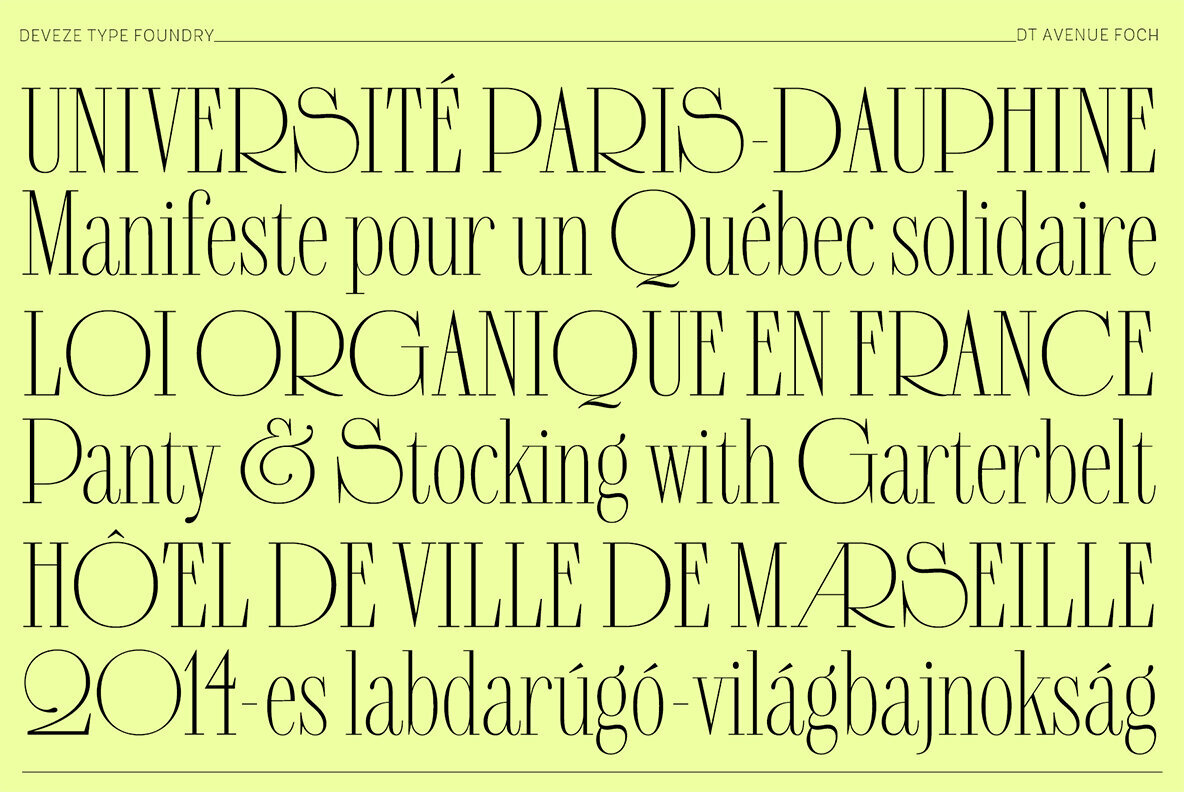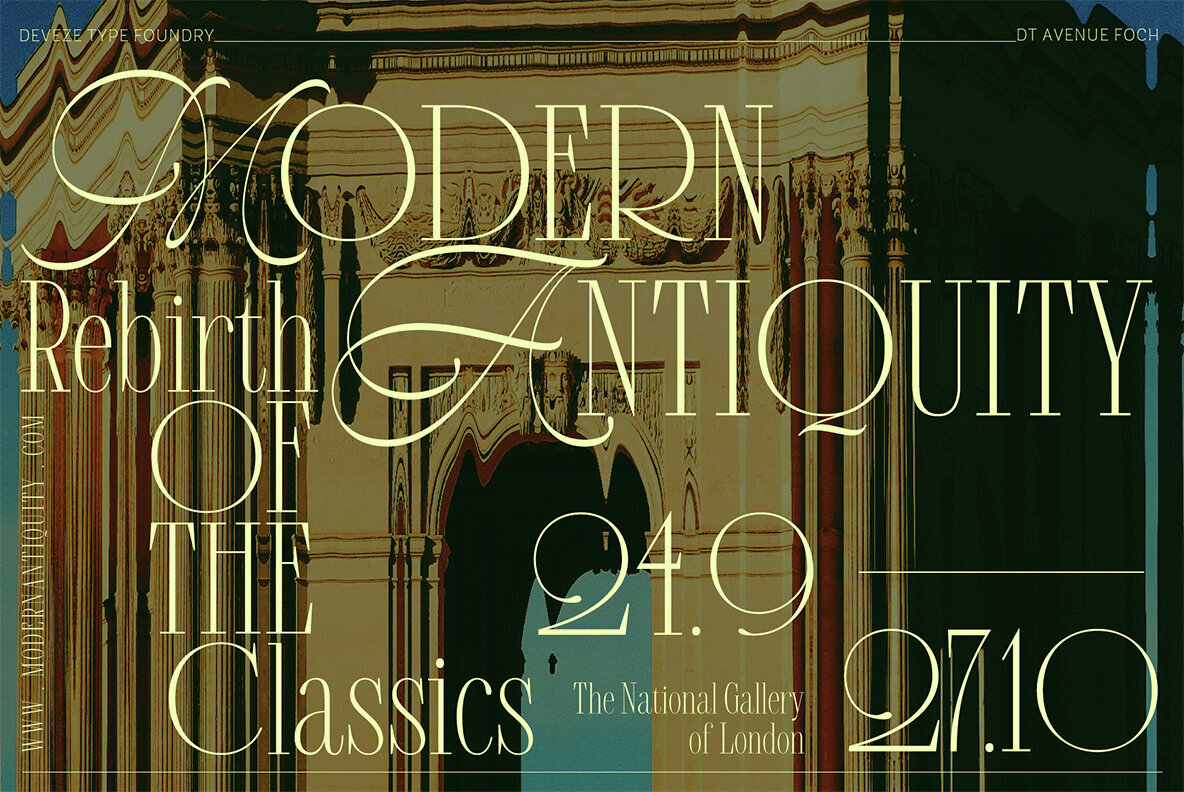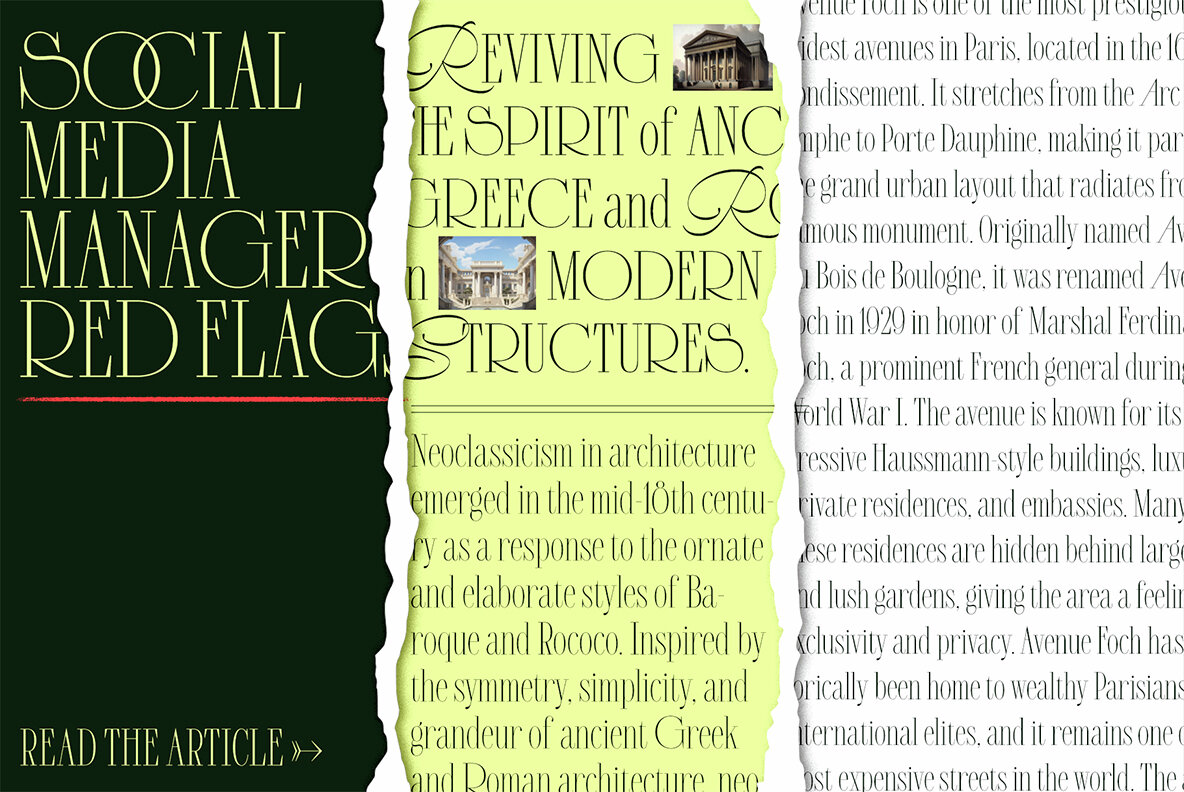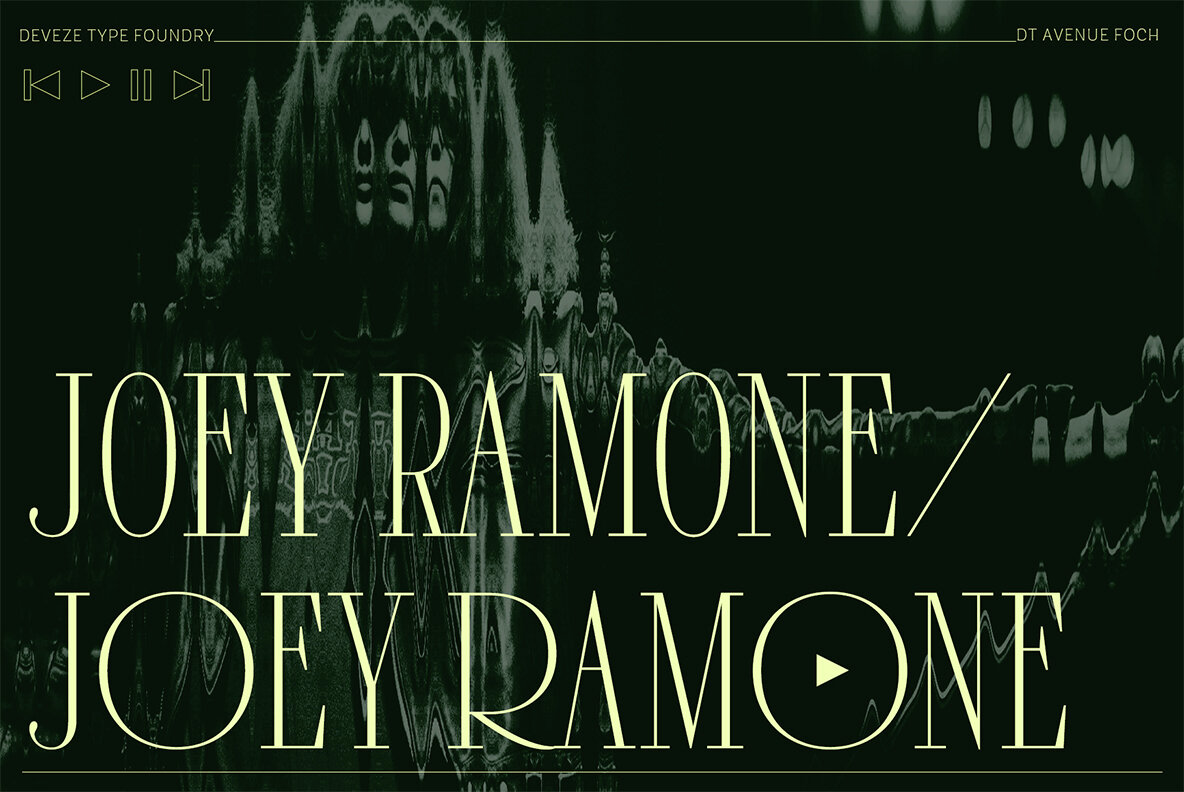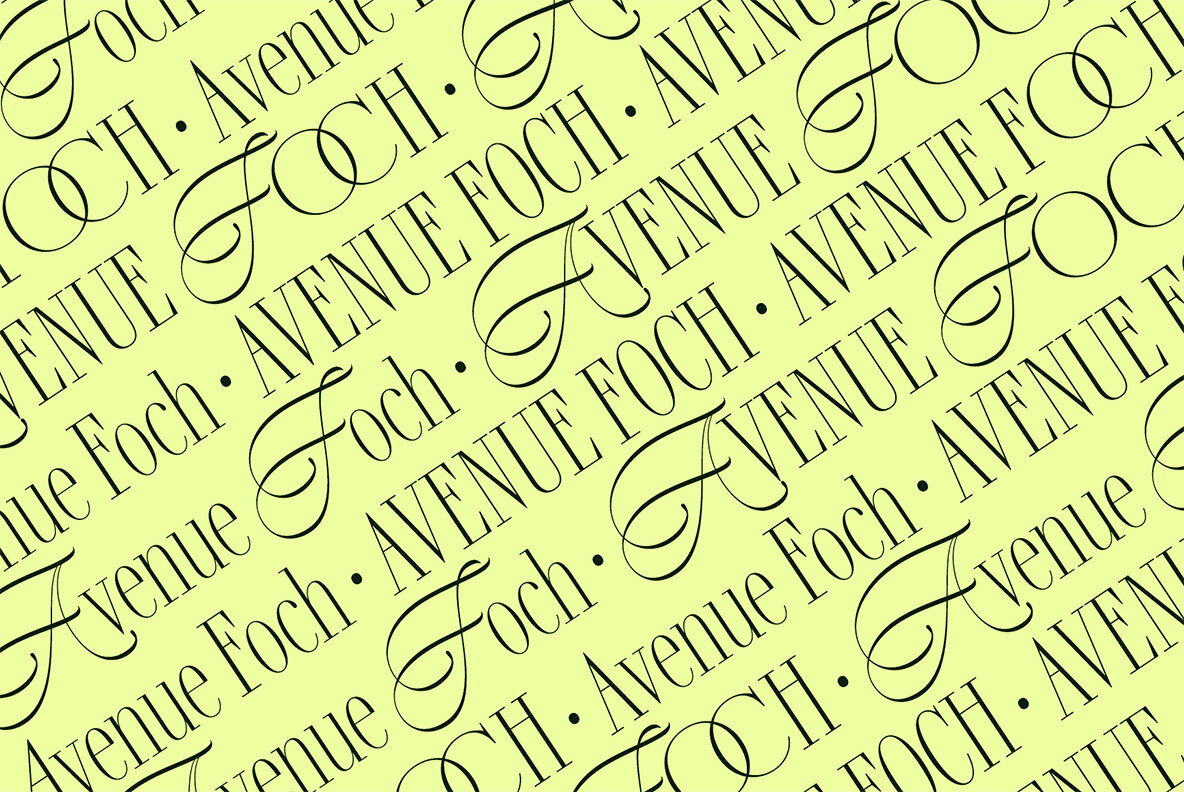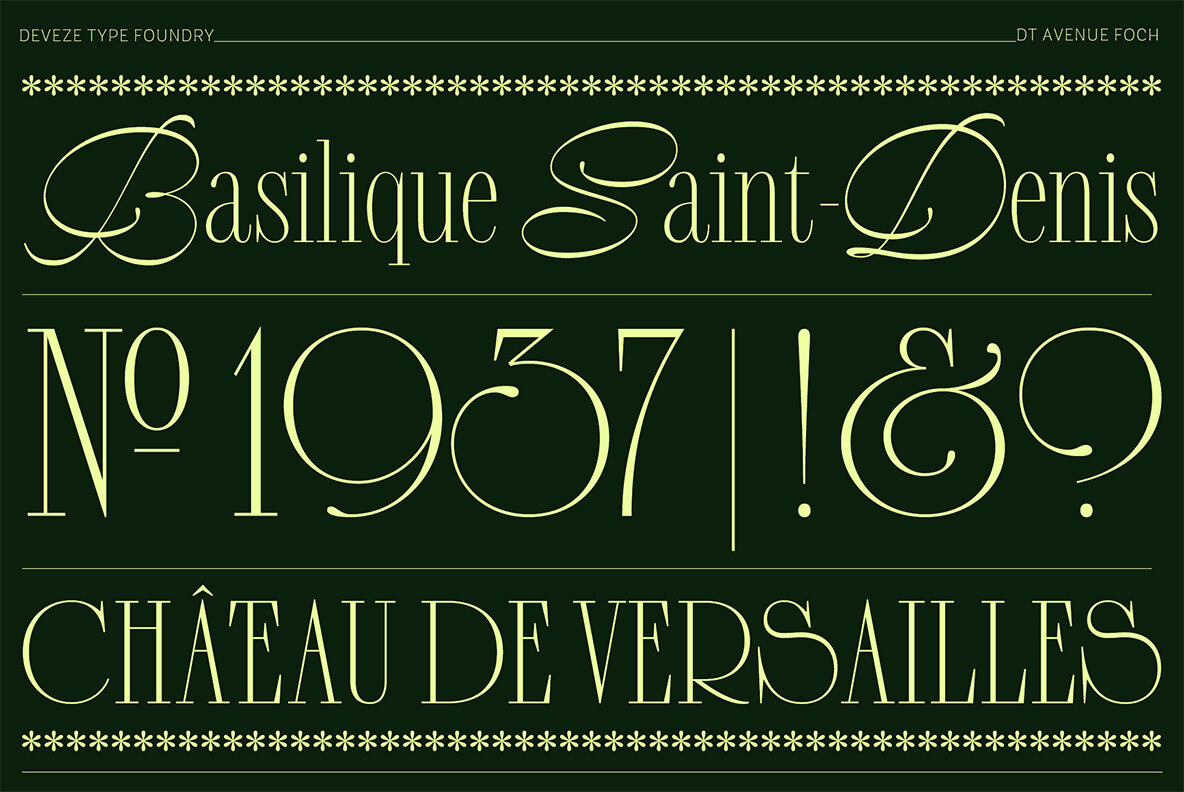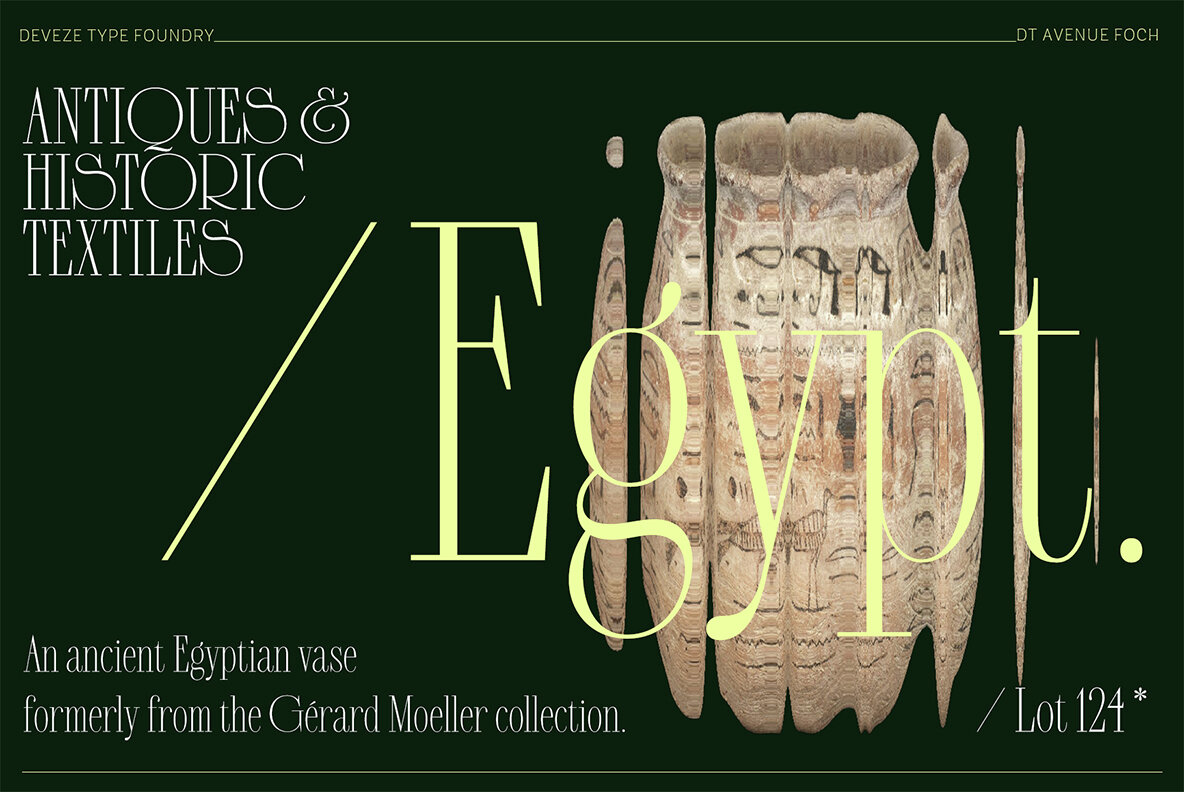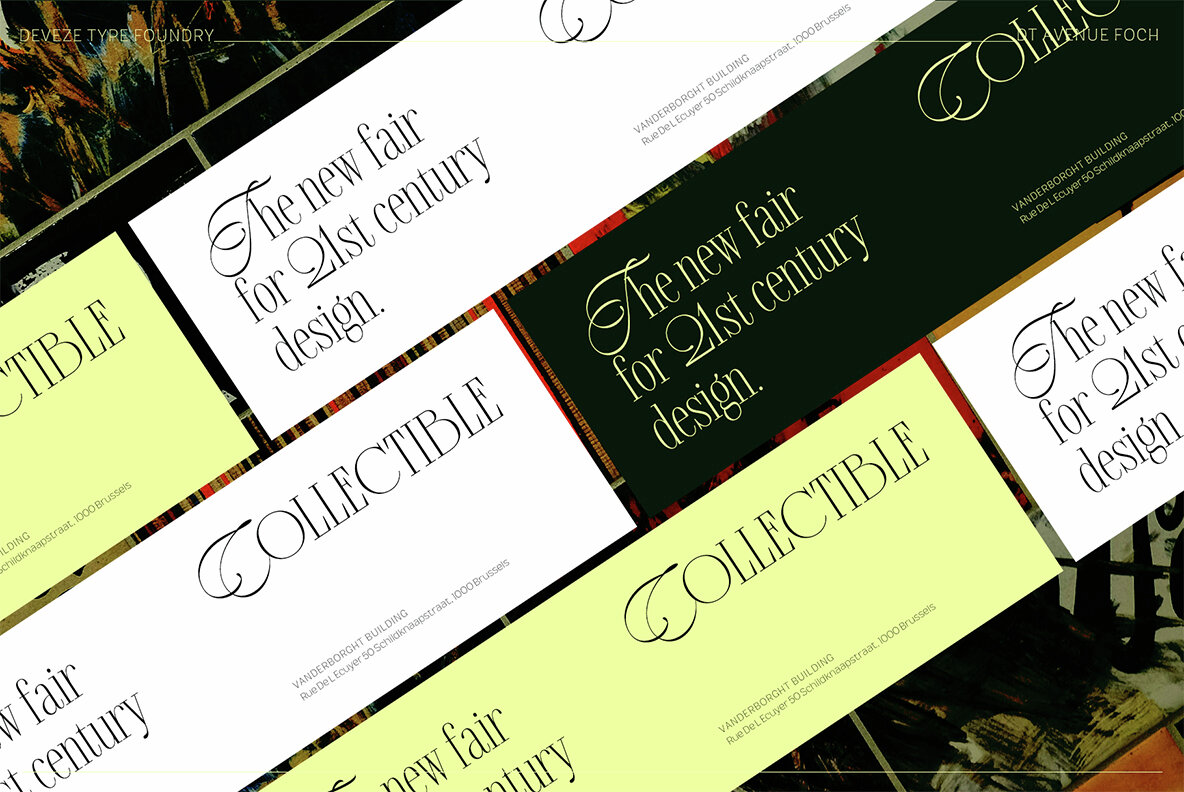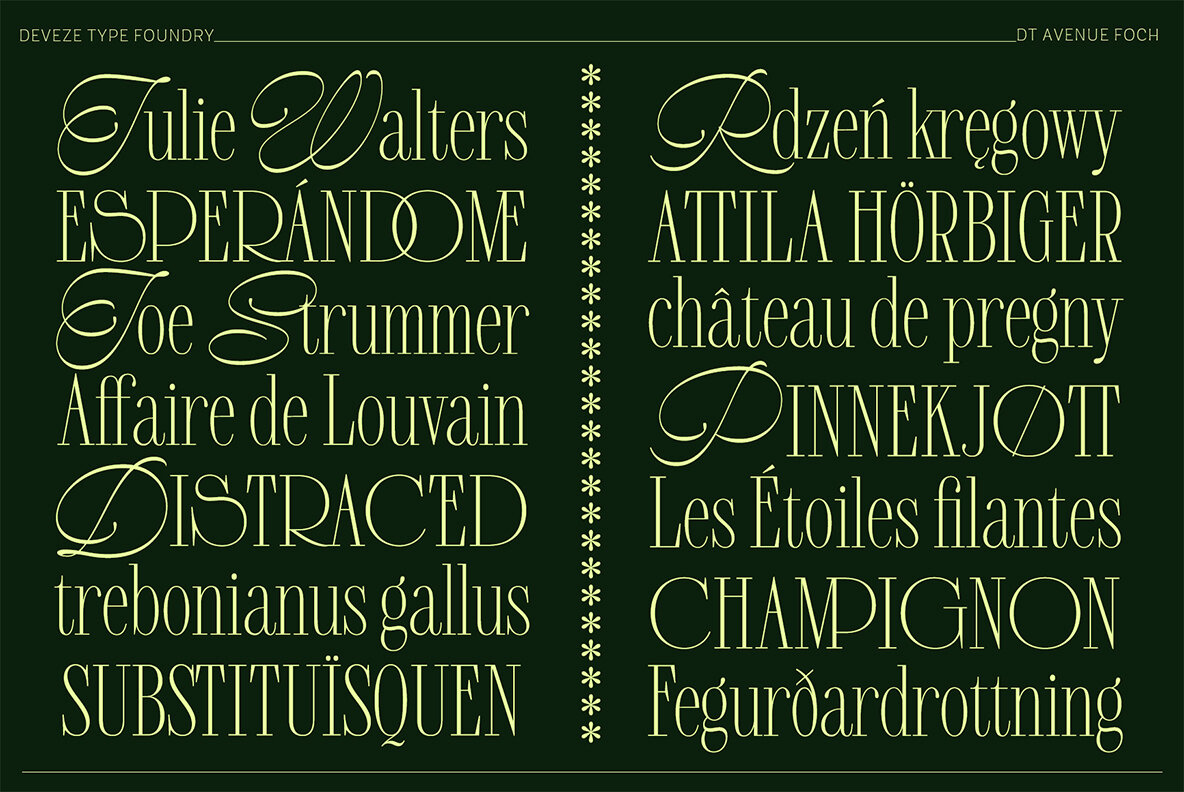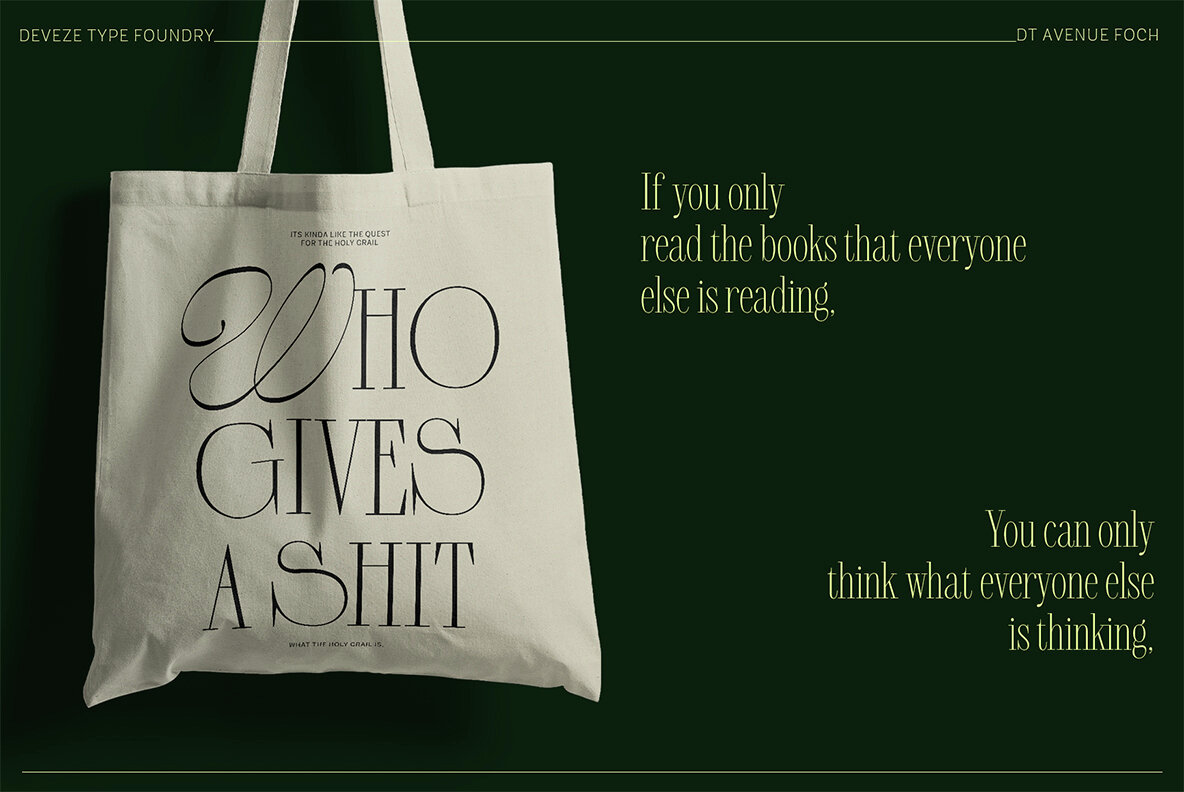
DT Avenue Foch Font
DT Avenue Foch is a sophisticated and elegant serif typeface inspired by the timeless grace of mid-century typography. Its slender, high-contrast letterforms exude a sense of refinement, perfectly suited for luxury branding, editorial design, and upscale packaging. The sharp serifs and elongated strokes are complemented by delicate curves, giving the typeface an exquisite balance between softness and structure. Inspired by the grandeur of Parisian boulevards and 20th-century typography, this typeface is designed to make a statement without sacrificing clarity or readability. Whether it's editorial design, luxury branding, or high-end packaging, DT Avenue Foch is a perfect fit for projects that demand an elevated aesthetic. Its versatility makes it equally suitable for magazine headlines, logotypes, and fashion-forward campaigns, delivering a sense of grandeur and poise in every setting. Each capital letter has its own calligraphic, reverse-contrast variant, adding an extra layer of visual interest and elegance. For even greater customization, the typeface includes two styles of rounded and semi-rounded characters, available in both wide and narrow forms. These alternates apply to letters B, C, D, G, O, P, Q, R, and S, as well as the numbers 2, 3, 5, 6, 8, 9, 0, the ampersand, and the question mark. The blend of classic and contemporary design elements ensures that DT Avenue Foch will stand out in any creative project. Its stylistic calligraphic alternatives, combined with its wide and narrow character options, provide designers with the flexibility to experiment and create unique, eye-catching compositions. This typeface is a celebration of craftsmanship and creativity, offering endless possibilities for those looking to infuse their work with elegance and style. • DT Avenue Foch Reg: The main font with all the characters via Open Type Features. Wide Caps are basic characters. The condensed caps are Stylistic Alternates (.salt). Swash caps are Stylistic Set 2 (Calligraphic Caps; ss02). • DT Avenue Foch Majuscule: The swash (calligraphic) capitals are the basic caps. All the roman style caps are in lowercase register. All the condensed roman caps are Stylistic Alternate (.salt) as well as the ligatures. The minuscules are missing. • DT Avenue Foch Minuscule: The swash (calligraphic) capitals are the basic caps. All the roman style caps are missing. The minuscules are in the basic lowercase set.